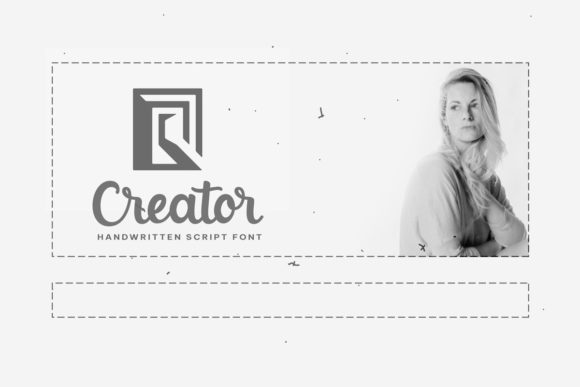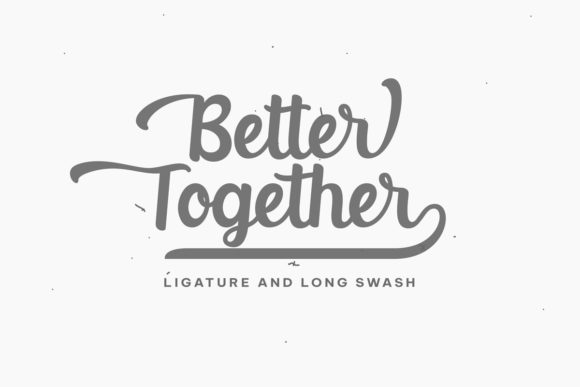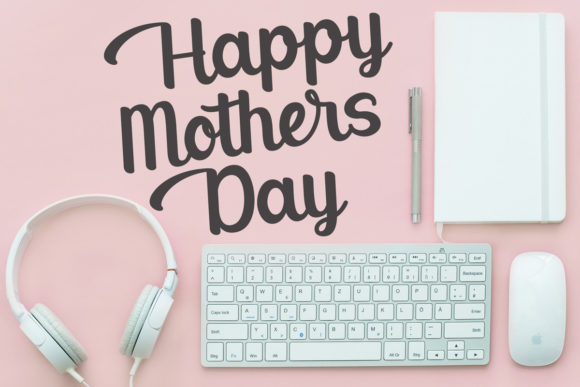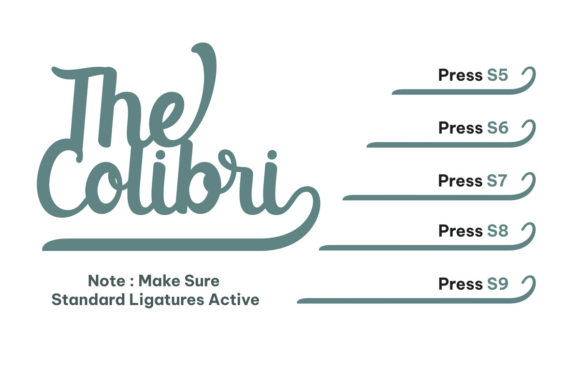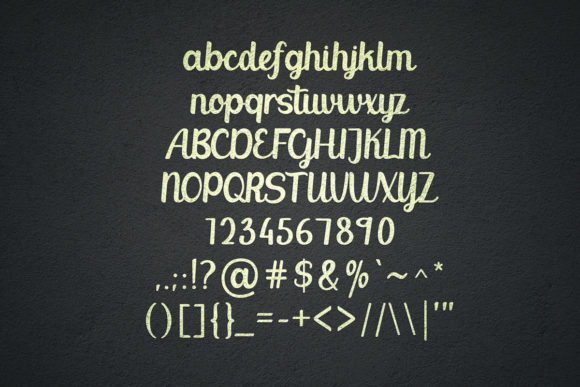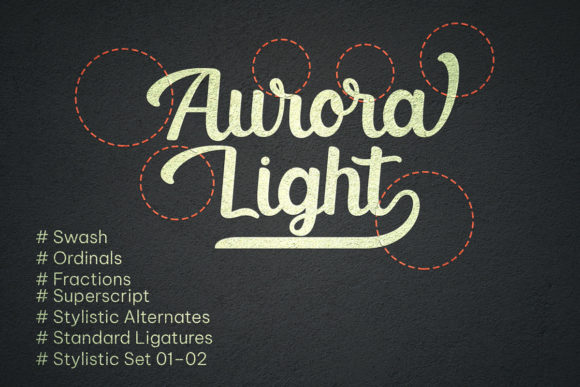
The Magic of Handwritten Typography: Unlocking the Power of Creative Script Font
There’s something special about the first spark of creativity that ignites a new project. Maybe it’s the flash of inspiration that hits you in the middle of the night, or the excitement of brainstorming with a team of like-minded individuals. Whatever the spark, it’s the moment when anything seems possible, and the possibilities are endless. For designers, this moment is often characterized by the search for the perfect typography to bring their vision to life.
That’s where the Creative Script Font comes in – a beautiful and flowing handwritten font designed to elevate your projects from ordinary to extraordinary. Whether you’re creating wall displays, wedding invitations, or social media post logos, this font is the perfect choice to add a touch of elegance and sophistication to your designs.
As a designer, you know how valuable it is to have a versatile and accessible font at your fingertips. With the Creative Script Font, you’ll have access to a wide range of glyphs and swashes, making it easy to add unique flair to your projects. This PUA encoded font is a game-changer for anyone looking to take their designs to the next level.
Creative Script Font Key Features
- Font Family: Creative Script Font is a unique, handwritten font designed to evoke a sense of elegance and sophistication.
- Unique Characteristics: Features a flowing, cursive script with intricate flourishes and subtle connections between letters, creating a distinctive and eye-catching effect.
Designer Review: Creative Script Font
Overall, I’d say the Creative Script Font is a decent addition to any font collection. It’s great for cursive or script-based projects that need a touch of elegance and sophistication. ✨ The font’s fluidity and swashes make it perfect for titles, quotes, or other headings that require a more artistic flair.
Here are some of the font’s strengths:
- ✨ High-quality swashes and flourishes
- ✨ Elegant and sophisticated look
- ✨ Versatile and suitable for various projects
- ⚠️ Limited character set and punctuation support
- ⚠️ May not be suitable for body text or large blocks of text
- ⚠️ Requires careful placement and kerning to avoid awkward spacing
In conclusion, while the Creative Script Font has its limitations, it’s still a valuable addition to any font collection. It’s perfect for specific projects that require a touch of elegance and sophistication. Just be aware of its limitations and use it judiciously.
For best results, use the font in combination with bold or italic text to create a visually appealing effect.
Use the font in conjunction with other creative elements, such as hand-drawn illustrations or watercolor textures, to add a unique touch to your design.
Use the font to add a personal touch to your presentations or documents, such as in titles or headings.
The Creative Script Font is ideal for:
Food and beverage branding
Event promotions and advertising
Personalized gifts and stationery
Alternatives to Creative Script Font
Carolyna Pro is a modern calligraphy font that is perfect for creating elegant and sophisticated designs. It has a wide range of styles and weights, making it a versatile choice for various design projects. When to use: wedding invitations, luxury branding, and high-end packaging. Compared to Creative Script Font, Carolyna Pro has a more refined and polished look, making it a great choice for premium designs.
Great Vibes is a beautiful, handwritten script font that is ideal for creating casual and playful designs. It has a relaxed, organic feel that makes it perfect for social media graphics, blog posts, and other informal content. When to use: social media graphics, blog posts, and casual branding. Compared to Creative Script Font, Great Vibes has a more laid-back and informal tone, making it a great choice for relaxed designs.